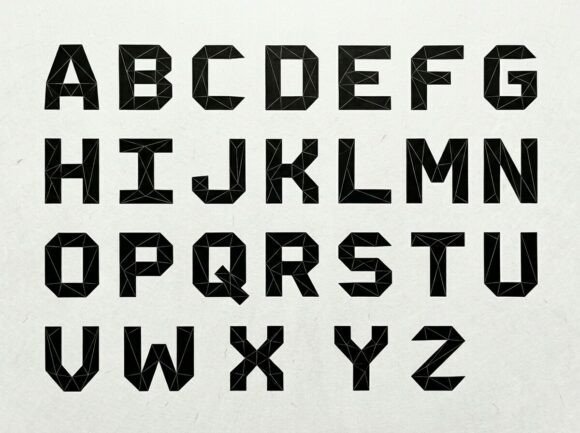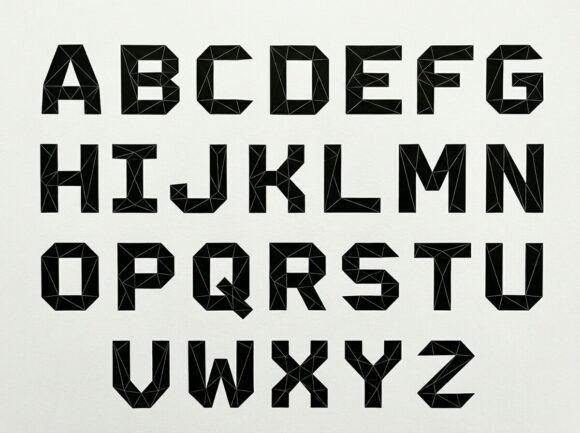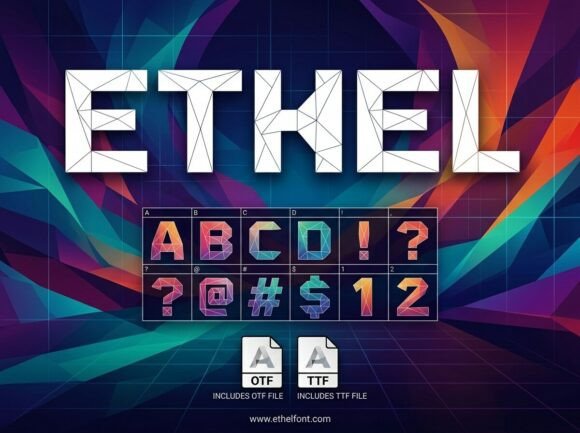
Ethel Font: A Stunning Decorative Display Font for Creative Minds
Are you tired of using the same old fonts for your creative projects? Look no further than the Ethel Font, a stunning decorative display font designed to turn heads. With its unique artistic elements and strong visual personality, this font is perfect for creators who want to break away from the ordinary and make a statement.
What Makes Ethel Font So Special?
Ethel Font is a versatile font that can be used for a variety of creative projects, from bold headlines and artistic logos to creative packaging. Despite its decorative nature, this font maintains a professional and polished finish, making it suitable for a wide range of applications. Whether you’re a designer, crafty DIY enthusiast, or entrepreneur looking to brand your business, Ethel Font is an excellent choice.
Before making a purchase, it’s essential to note that Ethel Font is an ALL-CAPS (Uppercase Only) display typeface. This means that it does not include lowercase letters. The font is specifically designed for high-impact headlines, logos, and decorative initials where every letter is a work of art. This unique design approach allows for maximum visual impact and makes Ethel Font perfect for attention-grabbing applications.
Use Cases: Where Can You Use Ethel Font?
Ethel Font is an incredibly versatile font that can be used in a variety of creative projects, including:
- Headlines and Titles: Use Ethel Font to create bold, eye-catching headlines that grab attention and make a statement.
- Logos and Branding: Create a unique and memorable logo for your business or brand with Ethel Font.
- Packaging Design: Add a touch of elegance and sophistication to your product packaging with Ethel Font.
- Artistic Projects: Use Ethel Font to add a creative and artistic touch to your projects, such as posters, flyers, and brochures.
Why Choose Ethel Font?
With so many fonts available, why choose Ethel Font? Here are just a few reasons:
- Unique and Creative: Ethel Font offers a fresh and creative take on traditional decorative fonts.
- Professional and Polished: Despite its decorative nature, Ethel Font maintains a professional and polished finish.
- Versatile: Ethel Font can be used for a wide range of creative projects, from headlines and logos to packaging and artistic projects.